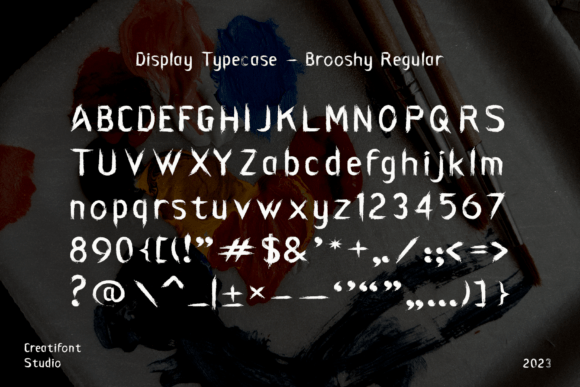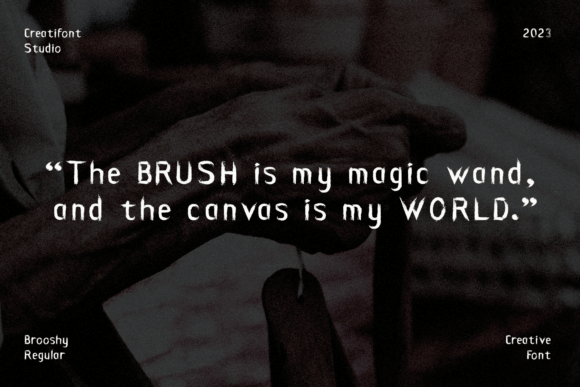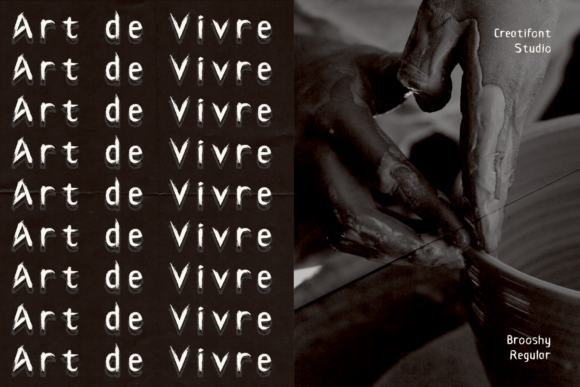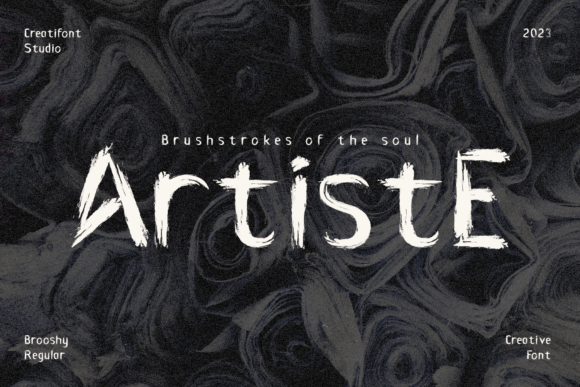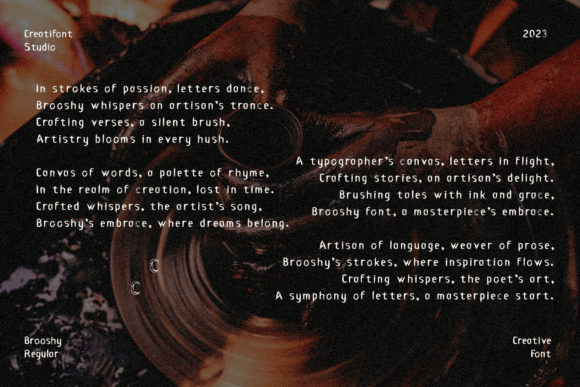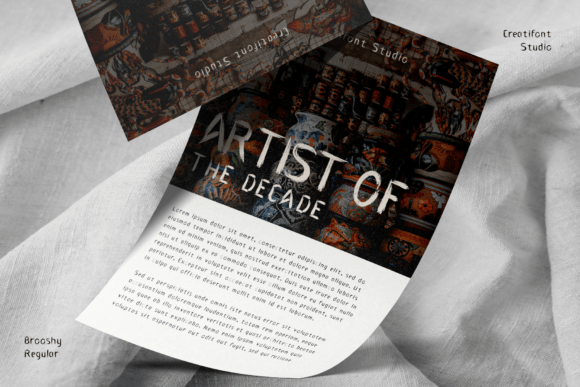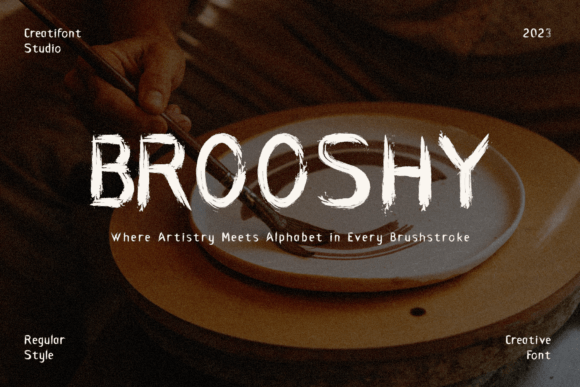
Unleash Your Creativity with Brooshy Font: A Brushstroke Masterpiece
In the world of typography, few fonts have managed to capture the essence of handcrafted artistry as effectively as Brooshy. This stunning typeface is inspired by the expressive strokes of a brush, bringing a raw energy to your designs that’s hard to ignore. With its bold and dynamic strokes, Brooshy exudes strength and character, making it the perfect choice for designers and crafters seeking to infuse their projects with a touch of bold creativity.
The Inspiration Behind Brooshy
Brooshy is a tribute to the fluidity of brushwork, capturing the essence of each stroke with remarkable precision. The font’s creator sought to emulate the organic feel of hand-painted letters, where every brushstroke tells a story. The result is a typeface that’s not just a collection of letters, but a visual representation of the creative process itself.
Key Features of Brooshy Font
- Expressive Strokes: Brooshy’s strokes are designed to mimic the fluidity of brushwork, giving your text a dynamic and handcrafted feel.
- Bold and Dynamic: The font’s bold and dynamic strokes exude strength and character, making it perfect for headlines, titles, and other display text.
- Highly Legible: Despite its bold nature, Brooshy remains highly legible, even at smaller font sizes.
- Versatile: Brooshy is suitable for a wide range of design applications, from branding and advertising to packaging and digital media.
Use Cases for Brooshy Font
Brooshy’s unique characteristics make it an excellent choice for various design projects, including:
- Branding and Logo Design: Use Brooshy to create a bold and memorable brand identity that stands out from the crowd.
- Advertising and Marketing: Brooshy’s dynamic strokes make it perfect for headlines and titles that need to grab attention.
- Packaging Design: Add a touch of handcrafted charm to your product packaging with Brooshy’s unique and expressive font.
- Digital Media: Use Brooshy to add a creative and artistic touch to your digital content, such as social media graphics, blog posts, and website headers.
Tips for Using Brooshy Font Effectively
To get the most out of Brooshy, follow these tips:
- Experiment with Font Sizes: Brooshy looks great at various font sizes, so don’t be afraid to experiment and find the perfect size for your design.
- Play with Color: Brooshy’s bold strokes look amazing in bold colors, so try using it with bright and vibrant hues to add an extra layer of creativity to your design.
- Mix and Match: Combine Brooshy with other fonts to create a unique and visually appealing typography scheme.
Brooshy font is a game-changer for designers and crafters looking to add a touch of bold creativity to their projects. With its expressive strokes, bold and dynamic nature, and high legibility, Brooshy is the perfect choice for a wide range of design applications. Whether you’re working on a branding project, advertising campaign, or packaging design, Brooshy is sure to bring a unique and artistic touch to your work. So why wait? Unleash your creativity with Brooshy font today and take your designs to the next level!